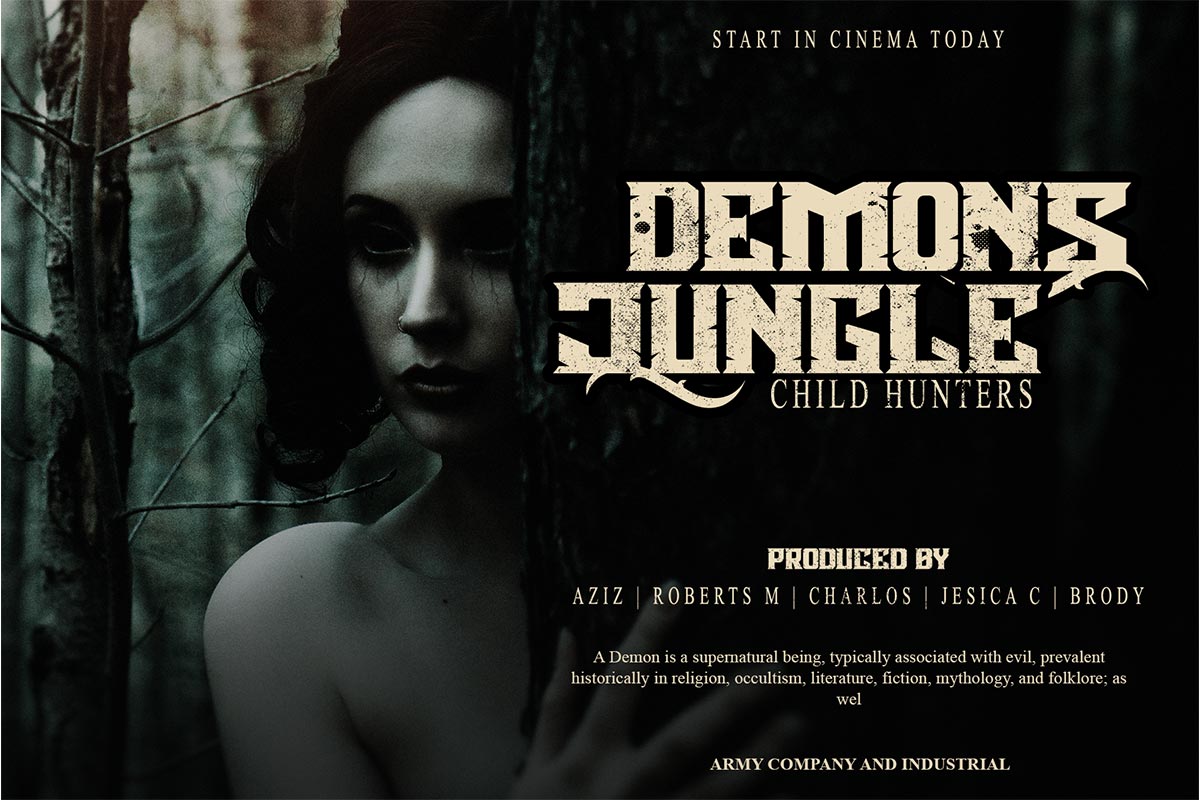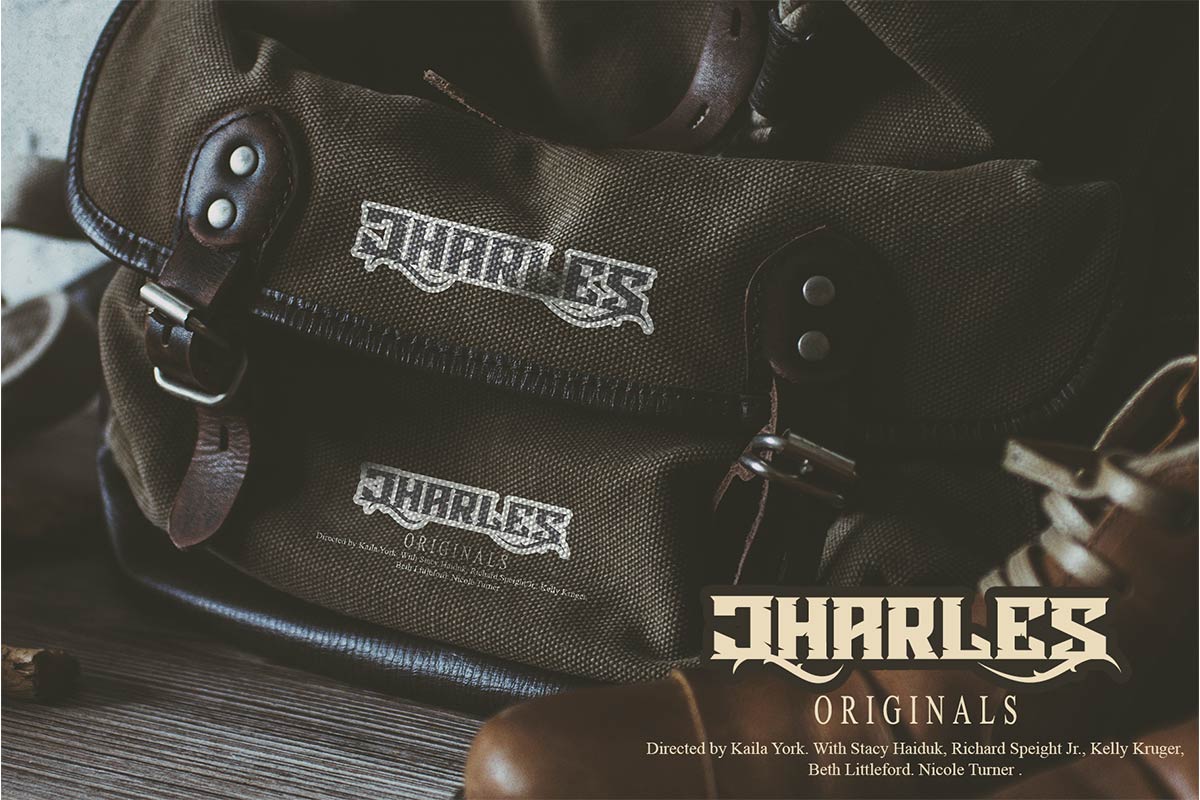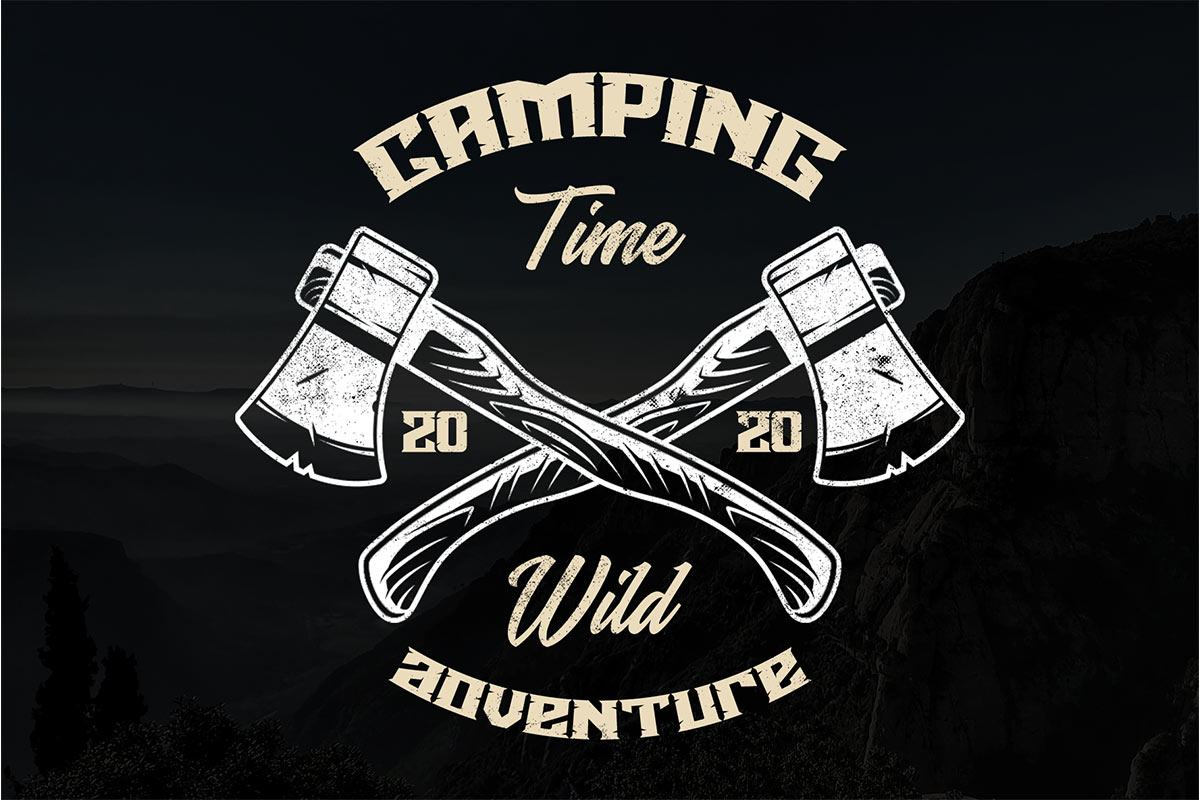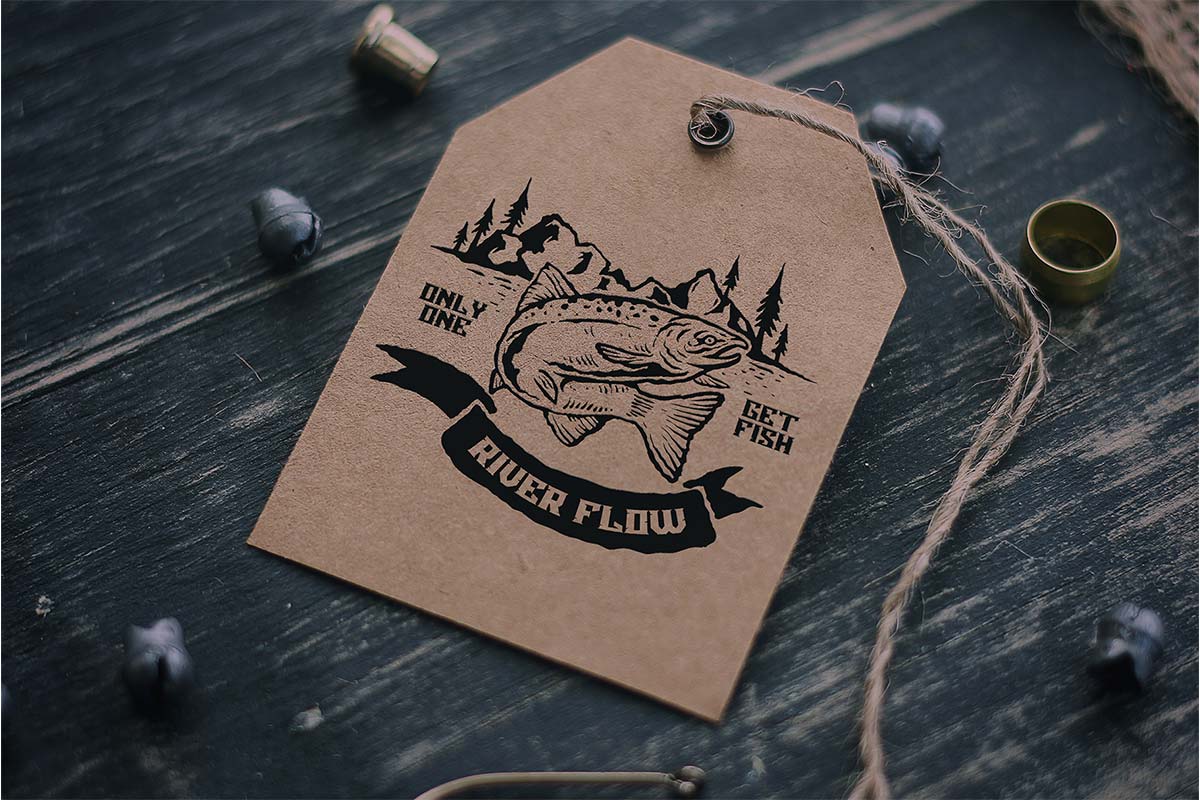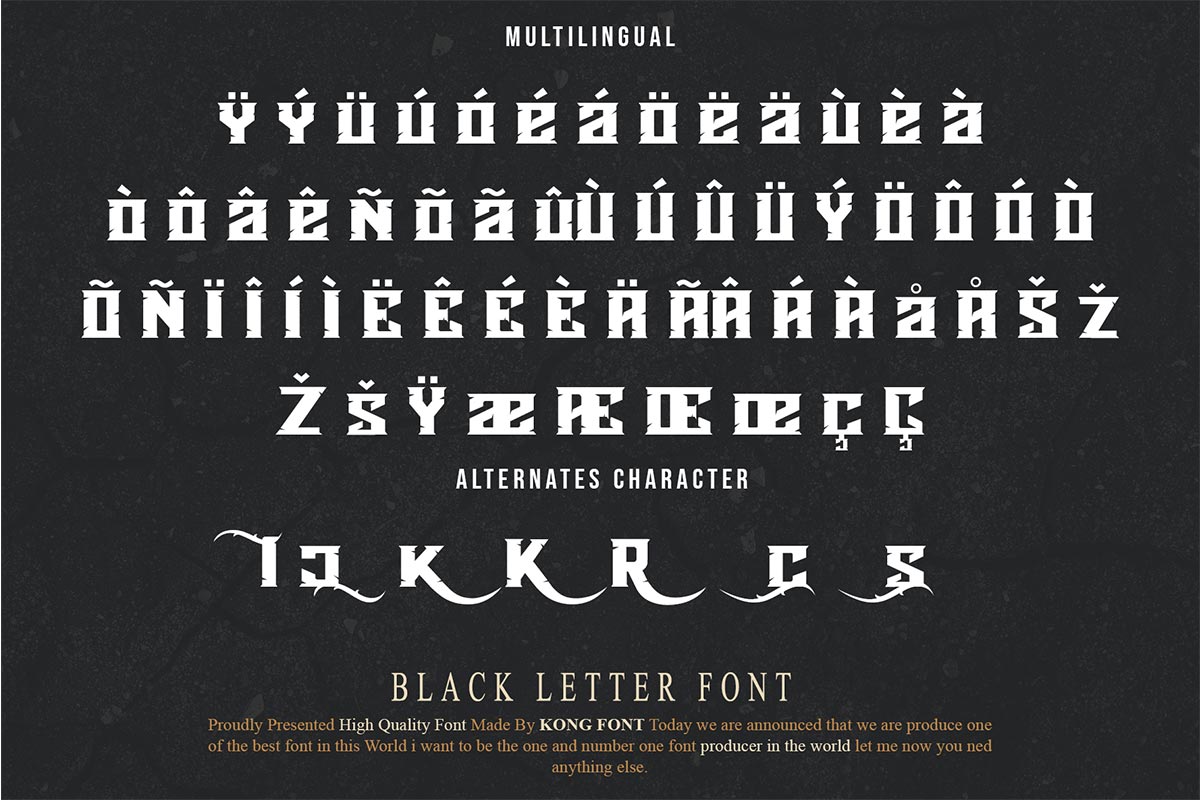
Agnostic Font Blackletter Font provides many options that you can use according to your needs. Fonts made can be applied for online and print use. Agnostic Blackletter font is one of the creations of Font Kong and is part of the Blackletter font. The font is formed with characteristics that show how blackletter is in general and also coupled with the unique shape that accompanies it. Agnostic Blackletter font has complicated characteristics and is like a combination of arches. This font is quiet when read and seen from a distance. High understanding is needed to read writing that uses this font. This font includes an eligible font. Agnostic Blackletter font has a modern, unique, and frightening impression. The impression displayed can be an added value for Agnostic Blackletter font when seen by anyone. With the characteristics described above, Agnostic Blackletter font is the best font for a brand's tag. This font is suitable for posters, album covers, and DVD covers containing metal themes. This font can use for branding a product, like a brand tag or store signboard. For your social media needs, you can use and install fonts in our font blackletter collection to use as Instagram fonts, Facebook fonts, and Twitter fonts. This font application, you can use in several applications, such as Figma Font, Canva Font, Freepik Font, Adobe Font, Google Font, Instagram Font, and Social Media Font.